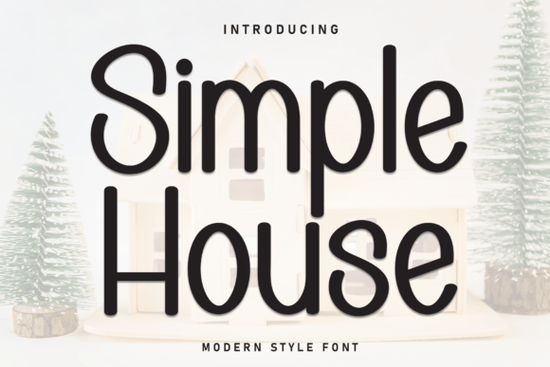
If you're looking for a handwritten font with a warm, friendly feel, the Simple House Font is worth a closer look. It's a sweet, casual typeface that works beautifully for wedding invitations, greeting cards, branding projects, and anything else that needs a personal, approachable touch. The letterforms are clean enough to stay readable while still feeling hand-drawn a balance that can be surprisingly hard to find.
What Makes a Good Handwritten Font?
Not all handwritten fonts are created equal. Some look too messy to read at small sizes. Others feel stiff and lose that natural, organic quality. The best ones like Simple House sit in a sweet spot. They look genuinely hand-lettered without sacrificing legibility.
When you're choosing a handwritten font, think about these things:
- Readability at different sizes. Can you use it for both headlines and small body text on a card?
- Spacing and flow. Do the letters connect naturally, or do they look awkward next to each other?
- Mood and tone. Does it match the vibe of your project playful, elegant, rustic, modern?
- Character set. Does it include numbers, punctuation, and multilingual support?
Simple House scores well on all of these. Its rounded, slightly bouncy letter shapes give it a cute and fun personality without going over the top.
Best Ways to Use Simple House Font
This font really shines in projects where you want things to feel lighthearted and genuine. Here are some ideas based on what designers and crafters commonly use it for:
- Wedding invitations and save-the-dates especially for casual, garden, or rustic-themed events
- Greeting cards birthday, thank-you, holiday, or baby shower cards
- Social media graphics quotes, announcements, Instagram stories
- Print-on-demand products mugs, tote bags, t-shirts with short phrases
- Small business branding logos, packaging, and menu designs for bakeries, cafés, or boutique shops
- Scrapbooking and journaling adding a handwritten feel to digital or printed layouts
Pairing it with a clean sans-serif for body text usually works well. The contrast keeps your design balanced and easy to read.
How Does It Compare to Other Script Fonts?
Simple House holds its own in this lineup because it's understated and versatile. It doesn't try to be dramatic or edgy it's just genuinely warm and friendly, which makes it useful across a wide range of projects.
Who Is This Font Best For?
If you're a crafter or hobbyist making cards, invitations, or home décor prints, Simple House gives you that handmade look without needing actual calligraphy skills. Print-on-demand sellers can use it for short, catchy phrases on products it's especially good for designs that target a cozy, wholesome aesthetic. Small business owners in food, retail, or lifestyle spaces can use it for menus, labels, and social media posts that feel approachable and personal.
Even if you're a professional designer, having a font like this in your toolkit saves time. Instead of hand-lettering every casual project, you can reach for a typeface that already captures that feel.